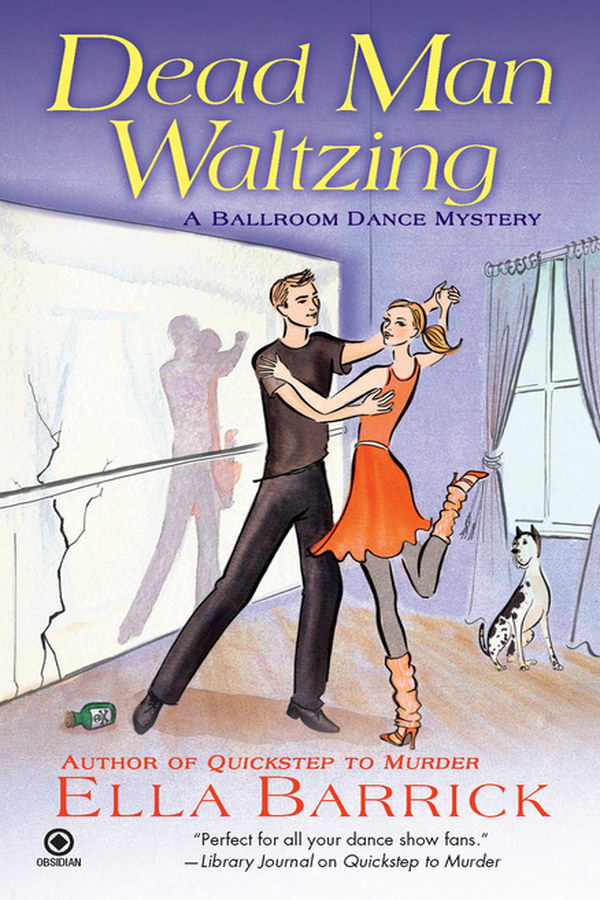
Dead Man Waltzing Font
BookDead Man Waltzing: A Ballroom Dance Mystery is a mystery novel written by Ella Barrick, that follows the story of a dance instructor named Lizzie who stumbles upon a dead body in her dance studio. As she works to clear her name, she uncovers a web of secrets and suspects within her own community.
On the book's cover, the title "Dead Man Waltzing" probably uses the Americana Italic font designed by Richard Isbell for ATF in honor of the U.S. Bicentennial. You can learn more about the font here.